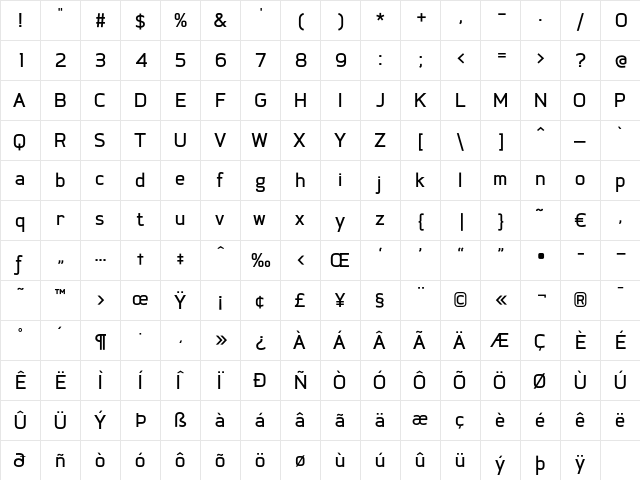
Coupe-Medium Regular Font Preview
Coupe-Medium Regular
Coupe-Medium Regular Font Details
Design Context for Coupe-Medium Typeface
Coupe-Medium takes a measured approach to typography — its balanced proportions and neutral character make it a reliable workhorse for both digital and print work.